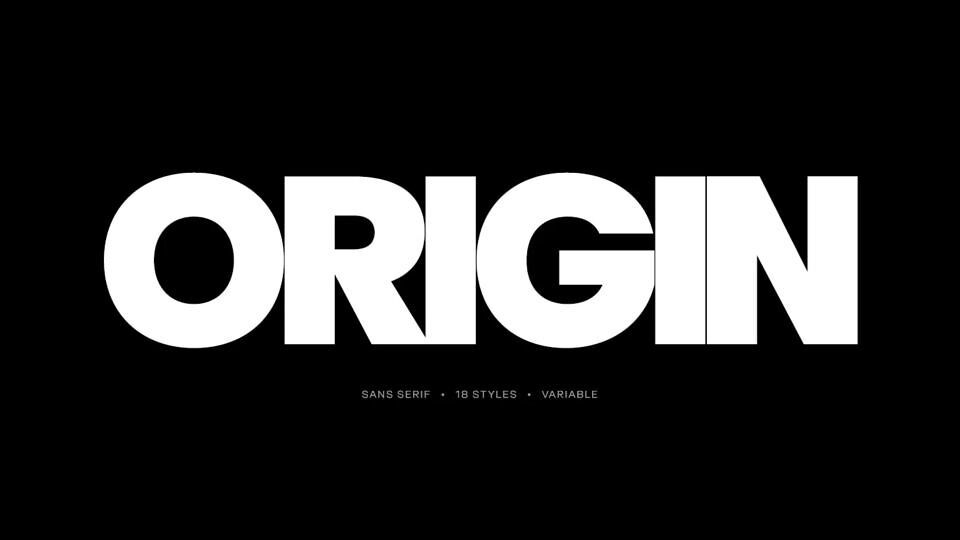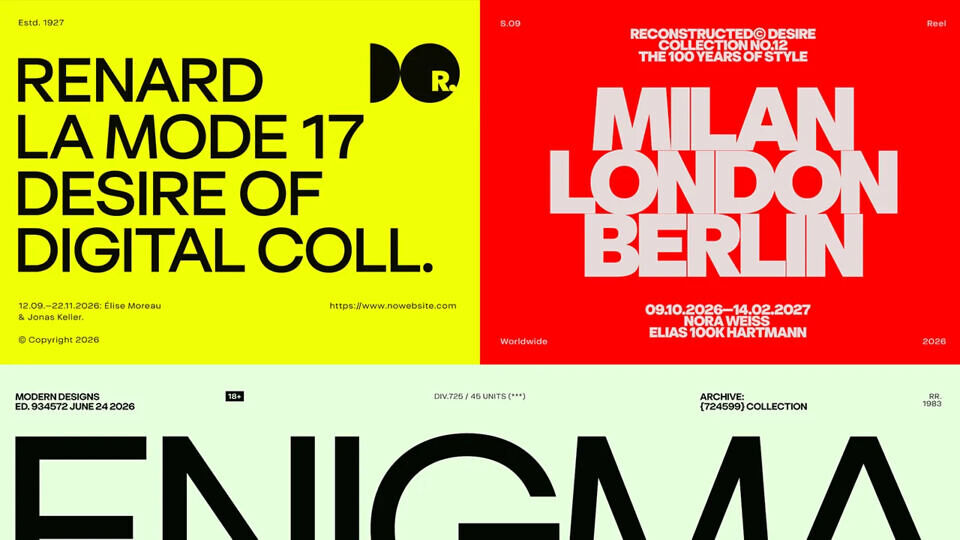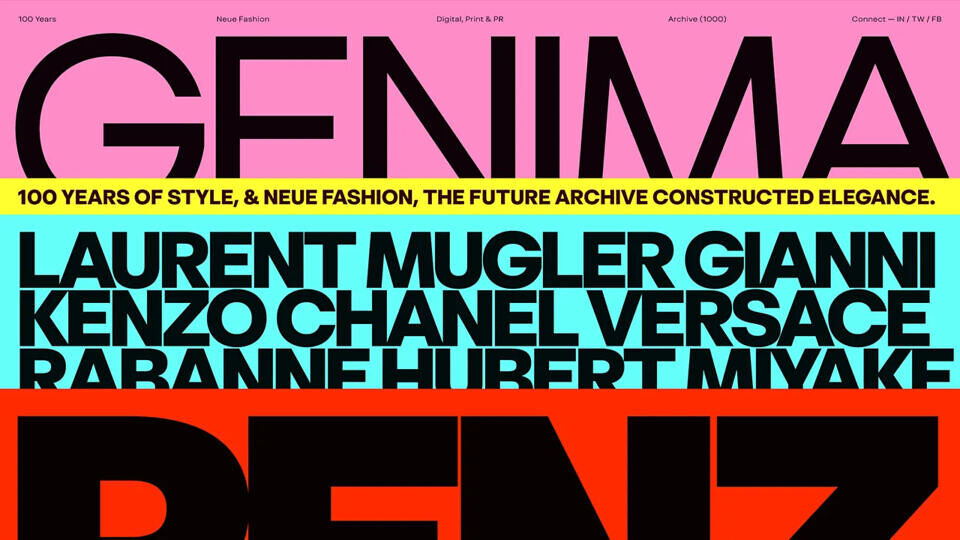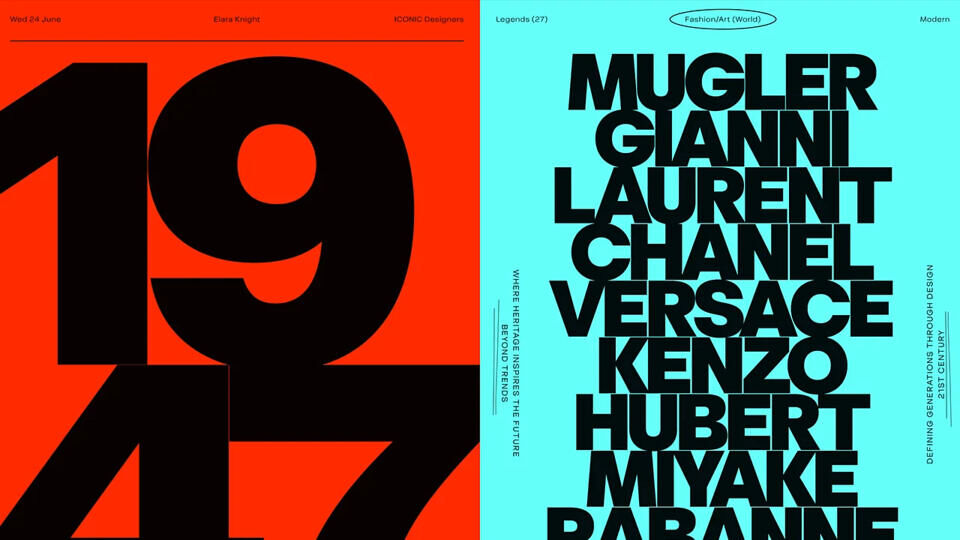
Origin Font Family
Origin is a sans-serif typeface featuring two optical sizes: Display and Text. It includes 9 weights and 18 styles, offering flexibility across a wide range of design applications. Origin is also available as a variable font, giving designers greater control and versatility across different design environments.